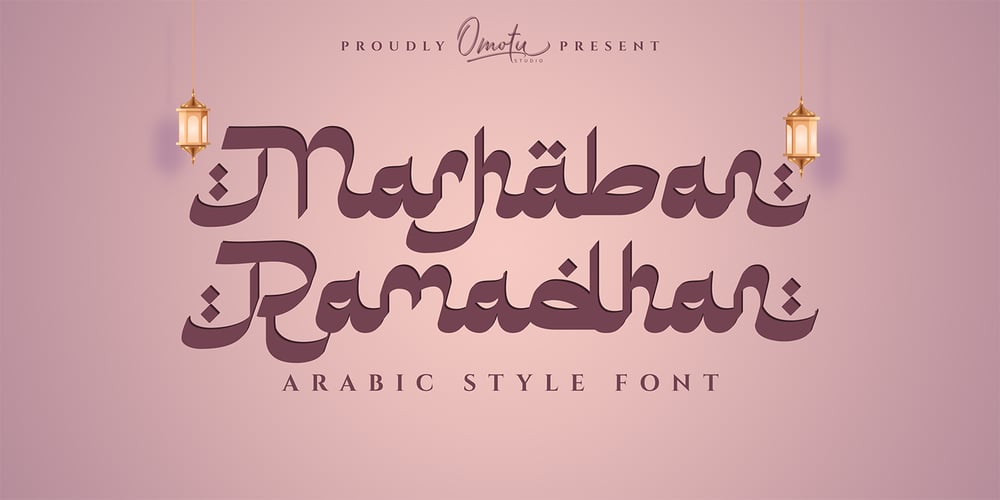
Marhaban Ramadhan
Marhaban Ramadhan font
Marhaban Ramadhan Font Family was designed by Ibnu Utomo and published by Omotu. Marhaban Ramadhan contains 1 styles and family package options. Marhaban Ramadhan is an arabic style font. Comes with arabic character letters look. This font very usable for designing all kind of graphics design related to Islamic Contents. Marhaban Ramadhan font is suitable for branding, logotype, apparel, T-shirt, Hoodie, product packaging, quotes, flyer, poster, book cover, advertising, etc.Whats Include?01. Opentype support02. Multilingual support03. PUA encoded04. Features: uppercase, lowercase, numeral, punctuation, multilanguage, alternates, stylist set, and ligatures.05. Accessible in the Adobe Illustrator Glyphs panel, or under Stylistic06. Alternates in the Adobe Photoshop OpenType menu, Adobe InDesign, Corel Draw, even work on Microsoft WordPlease message me if you’re unsure of any language support.Thanks for looking, and I hope you enjoy it!